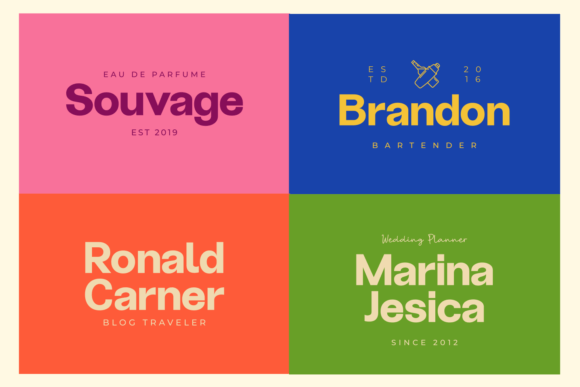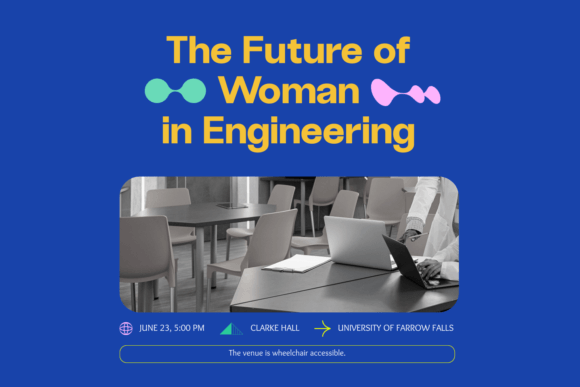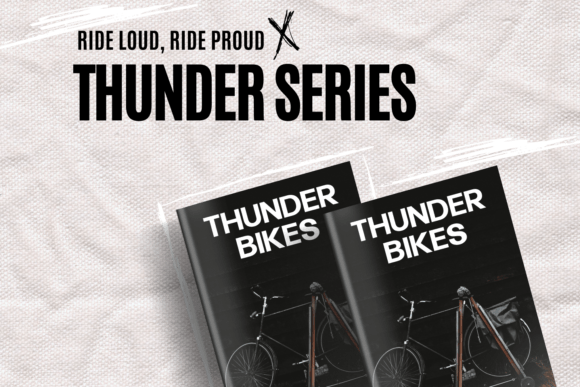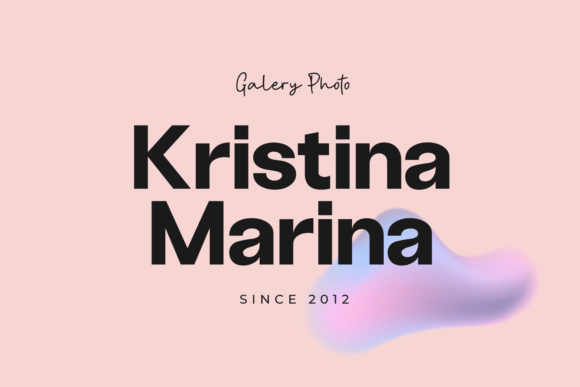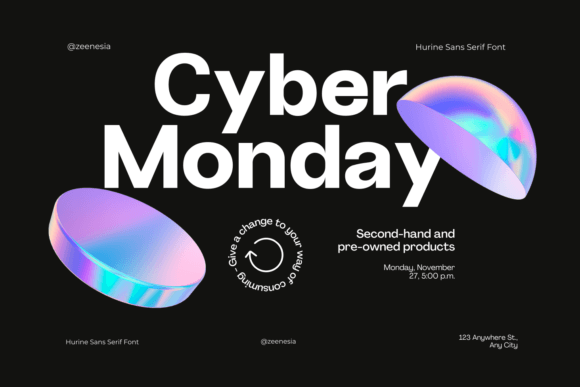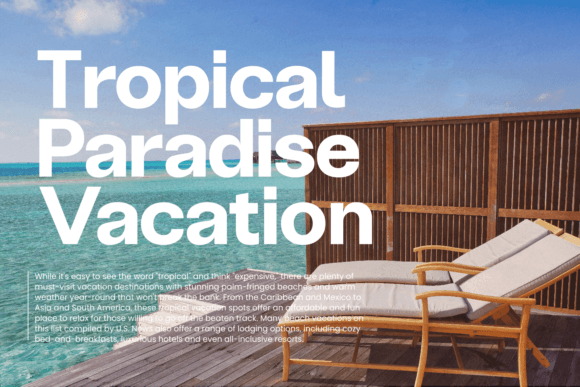
Introduction to Hurin Font
Have you ever found yourself lost in the creative process, struggling to bring your vision to life? It’s that moment, late at night, staring at your design project, when you need that perfect font to make it pop. For designers, a good font can be the difference between a mediocre design and a masterpiece.
That’s where the Hurin Font comes in – a modern sans serif typeface that seamlessly blends contemporary design principles with simplicity. Its clean, elegant lines and smooth strokes make it an invaluable resource for any creative project. Whether you’re working on a personal project or a commercial design, Hurin Font is sure to elevate your work to new heights.
Hurin Font
- High-quality, professional font suitable for creative projects and design resources.
- Designed with a unique, modern aesthetic, ideal for use in logos, branding, and marketing materials.
- Perfect for designers and artists looking for a high-quality, free design resource for their creative projects.
Honest Review: Hurin Font
I recently stumbled upon the Hurin Font while searching for a design resource for a creative project, and I must say it’s been a game-changer. The free download was a major plus, and I was excited to explore its features.
- High-quality design: The Hurin Font boasts a sleek and modern design that’s perfect for a variety of creative projects.
- ⚠️ Limited font sizes: While the font looks great at larger sizes, it can get a bit fuzzy at smaller sizes.
- ⚠️ Limited customization options: The font’s design is quite fixed, so I couldn’t experiment with different styles or effects.
Overall, I’m impressed with the Hurin Font, and I would definitely recommend it for design projects that require a modern and sleek look. While it may have some limitations, its high-quality design and transparent background make it a valuable resource for any designer.
Hurin Font
The Hurin Font is a versatile and high-quality design resource ideal for various creative projects. It can be downloaded for free and features a transparent background, making it easy to use in various applications.
To get the most out of the Hurin Font, use it in conjunction with other design elements to create a cohesive look. Experiment with different font sizes and colors to achieve the desired effect.
The Hurin Font is ideal for various creative projects, including:
- Branding